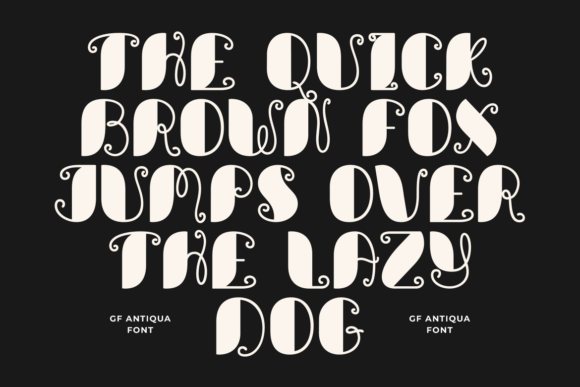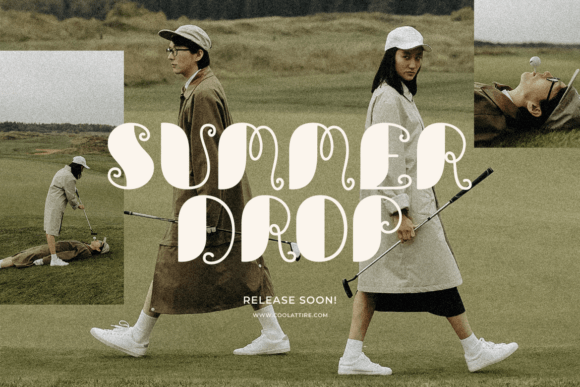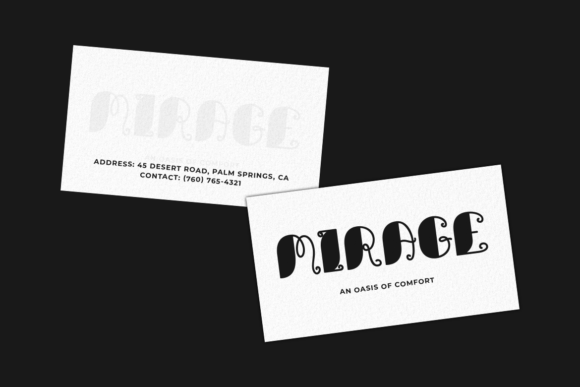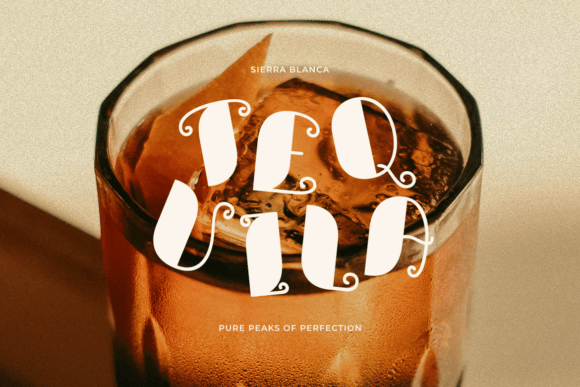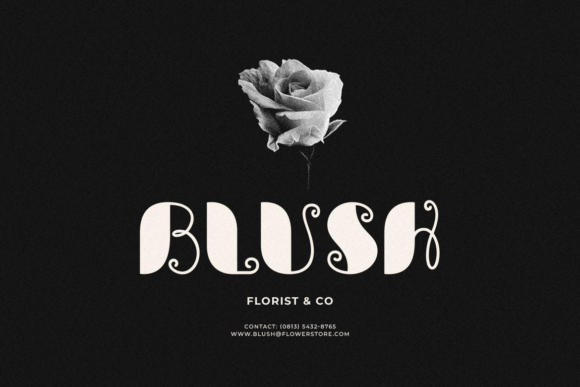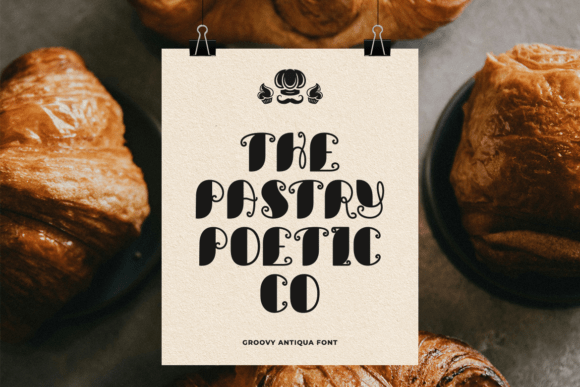
Introducing GF Antiqua Font: Elevate Your Designs with Elegant Flair
GF Antiqua is a charming display font that has been making waves in the design community with its elegant swirls and intricate curly tails. This beautiful font is perfect for designers and crafters looking to add a touch of sophistication and whimsy to their creative projects. Whether you’re working on headlines, logos, posters, or any other design endeavor, GF Antiqua is sure to make a statement and catch the eye of your audience.
What Makes GF Antiqua Font So Special?
GF Antiqua’s unique charm lies in its elegant swirls and curly tails, which add a level of flair to any design. The font’s intricate details and beautiful curves make it perfect for creating eye-catching headlines, titles, and logos. The curly tails, in particular, add a playful touch that can help set your design apart from the rest.
Uses for GF Antiqua Font
GF Antiqua is a versatile font that can be used in a variety of creative projects, including:
- Headlines and Titles: Use GF Antiqua to create stunning headlines and titles that grab attention and draw the reader in.
- Logos and Branding: The font’s elegant swirls and curly tails make it perfect for creating unique and memorable logos that reflect your brand’s personality.
- Posters and Flyers: Add a touch of sophistication to your posters and flyers with GF Antiqua’s beautiful, eye-catching lettering.
- Invitations and Stationery: Use GF Antiqua to create elegant invitations, greeting cards, and stationery that showcase your personal style.
Tips for Using GF Antiqua Font Effectively
To get the most out of GF Antiqua, here are a few tips to keep in mind:
- Use it sparingly: GF Antiqua is a display font, so it’s best to use it sparingly to create a focal point in your design.
- Pair it with a simple font: Pair GF Antiqua with a simple, clean font to create a beautiful contrast that makes your design stand out.
- Experiment with colors: Don’t be afraid to experiment with different colors and textures to add depth and interest to your design.
GF Antiqua Font: A Designer’s Perspective
As a designer, you’re always on the lookout for fonts that can help you create stunning, eye-catching designs. GF Antiqua is a game-changer in this regard, offering a unique blend of elegance and whimsy that’s hard to find in other fonts.
One of the things that sets GF Antiqua apart is its versatility. Whether you’re working on a logo, poster, or invitation, this font can help you create a design that’s both beautiful and effective.
GF Antiqua Font: A Crafter’s Perspective
As a crafter, you know how important it is to add a personal touch to your projects. GF Antiqua is a great way to do just that, offering a beautiful, elegant font that can help you create stunning handmade cards, invitations, and other crafts.
One of the best things about GF Antiqua is its ease of use. Even if you’re new to crafting or design, this font is easy to work with and can help you create professional-looking results.
GF Antiqua is a charming display font that’s perfect for designers and crafters looking to add a touch of elegance and whimsy to their creative projects. With its elegant swirls and intricate curly tails, this font is sure to make a statement and catch the eye of your audience. Whether you’re working on headlines, logos, posters, or any other design endeavor, GF Antiqua is a great choice.